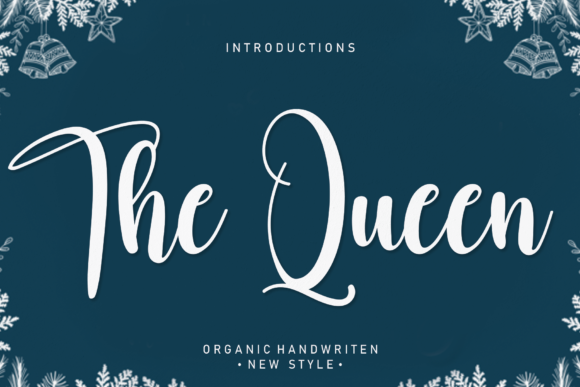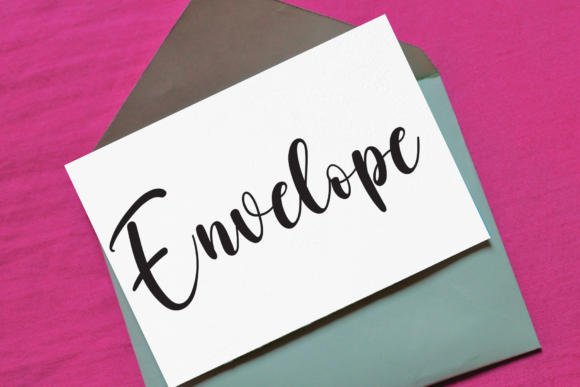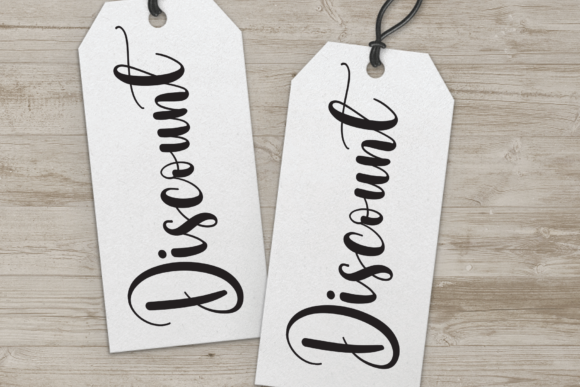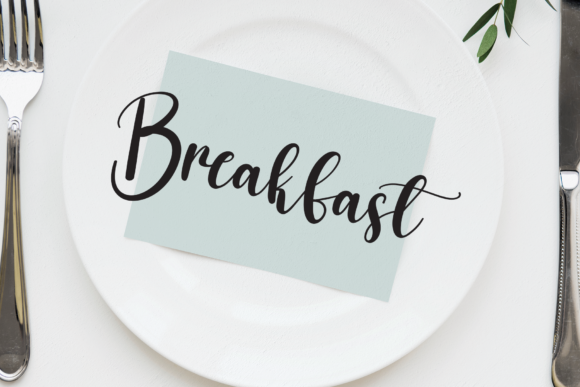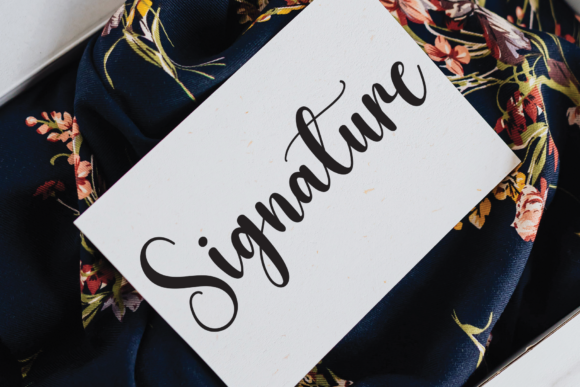
The Queen Font
About The Queen Font
The Queen is a chic, refined script font that emanates sophistication and elegance. Its stylish alternates and ligatures make this font the perfect match for any project.